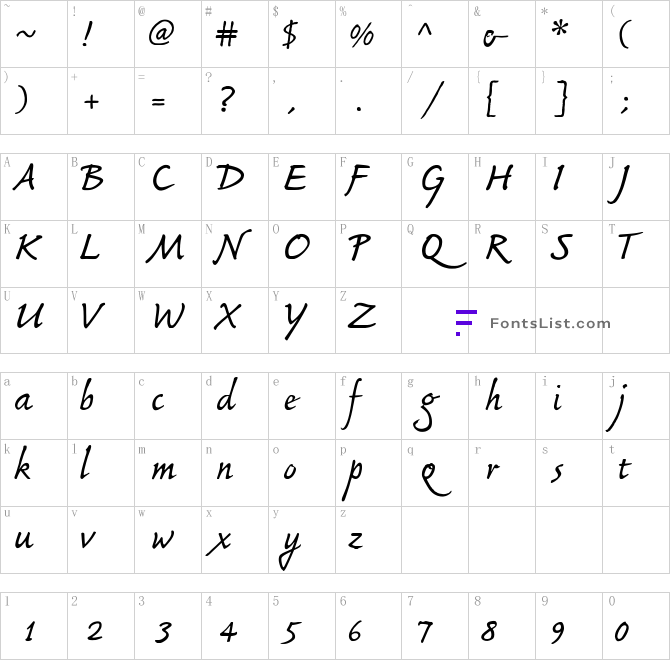
• Font Name:AIBouwsmaScript
• Subfamily:Medium
• Full Name:AIBouwsmaScript
AIBouwsmaScript.ttf is a very beautiful artistic font, AIBouwsmaScript.ttf is widely used in the design and printing of various books and pictures,AIBouwsmaScript.ttf has a strong visual impact,AIBouwsmaScript.ttf is a commonly used font in newspapers, magazines and books, and is used in posters, e-commerce Poster design, store design, logo design, font design and other fields.AIBouwsmaScript.